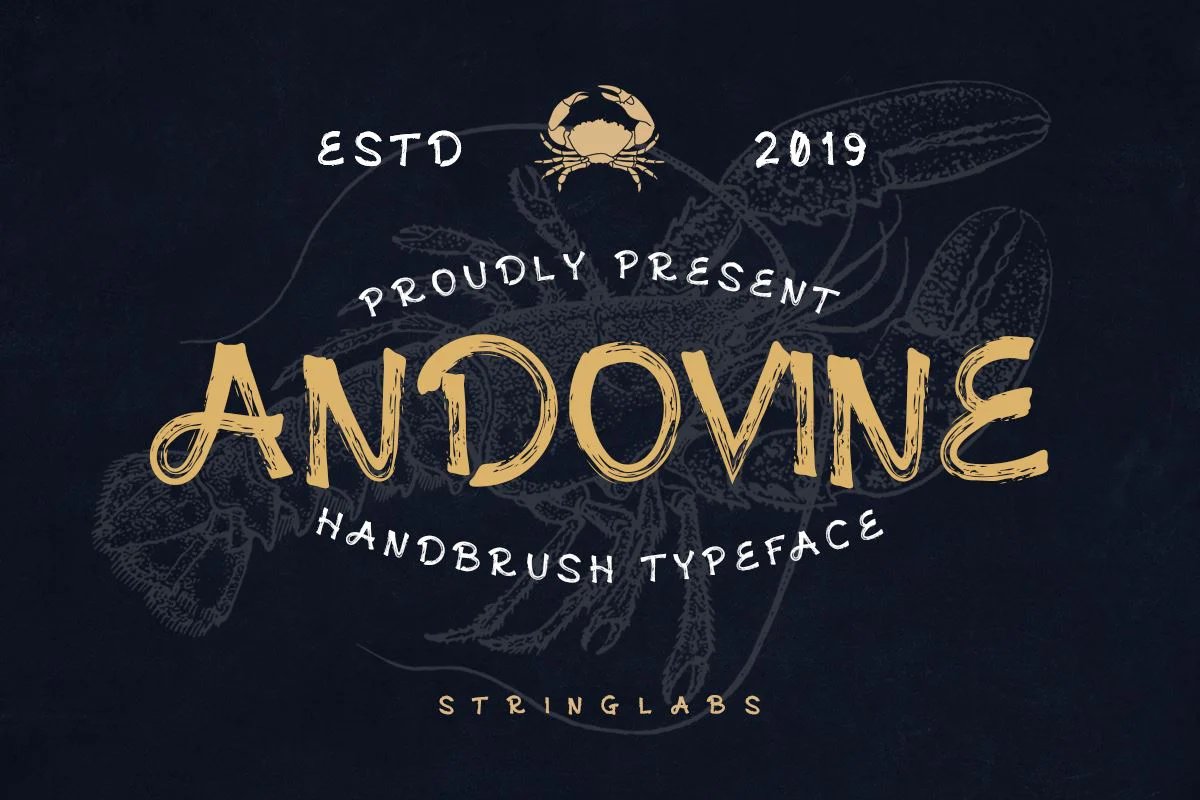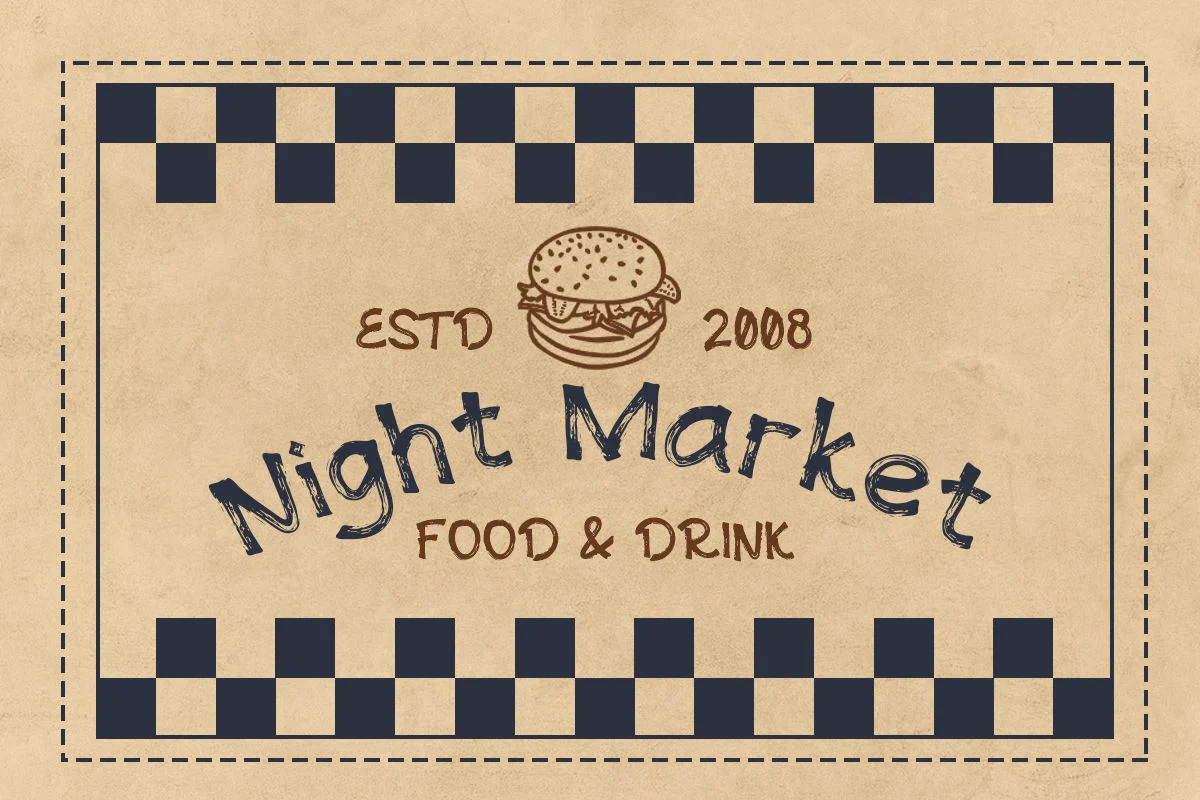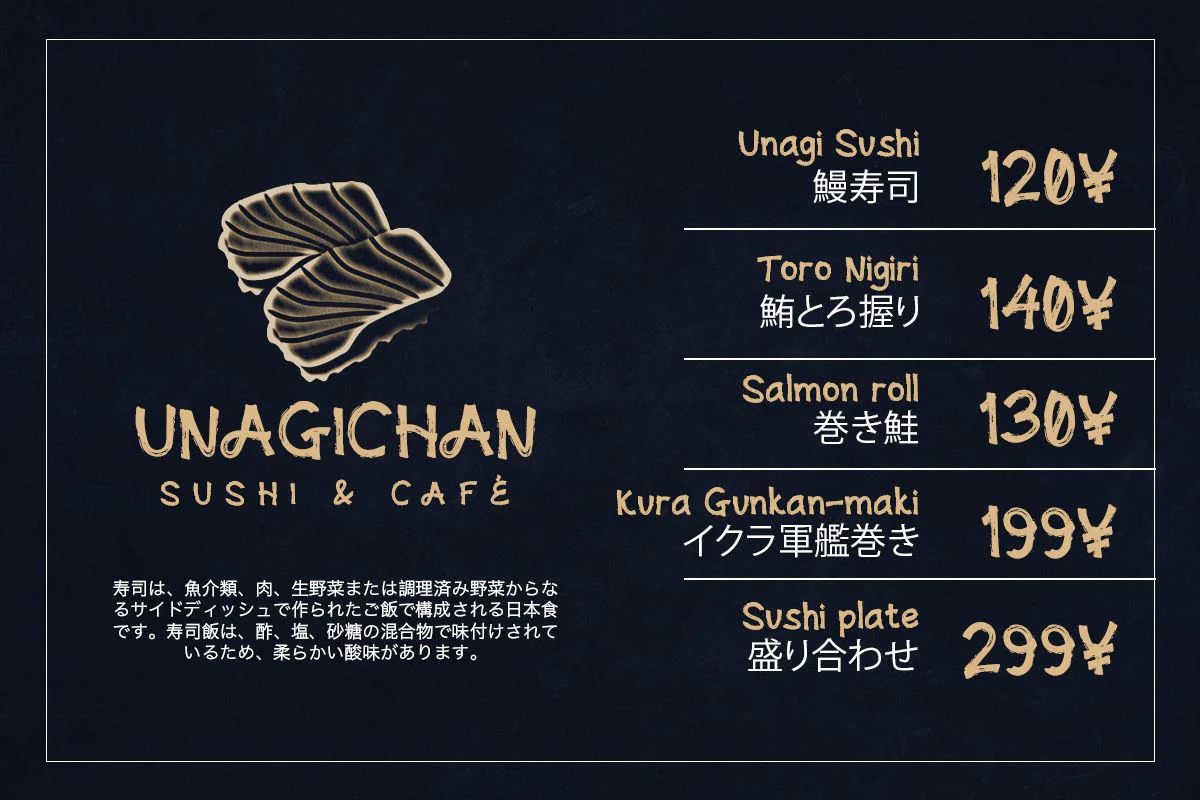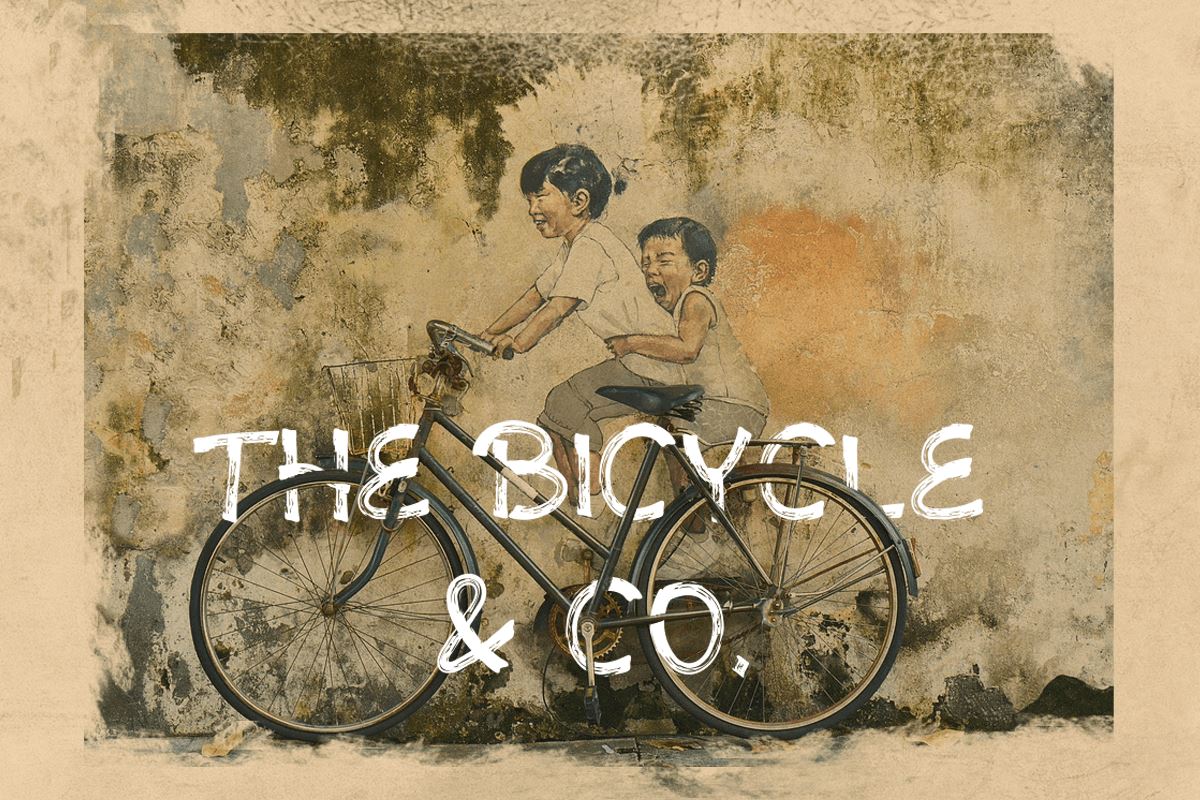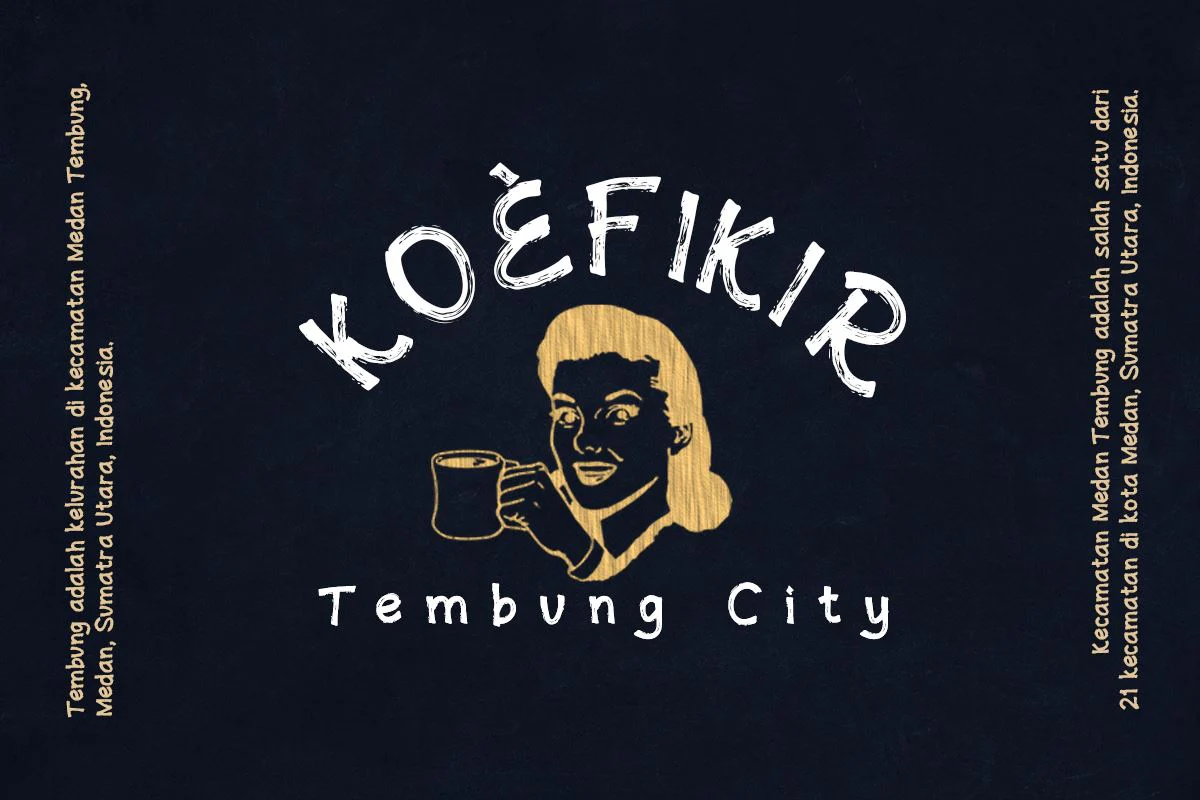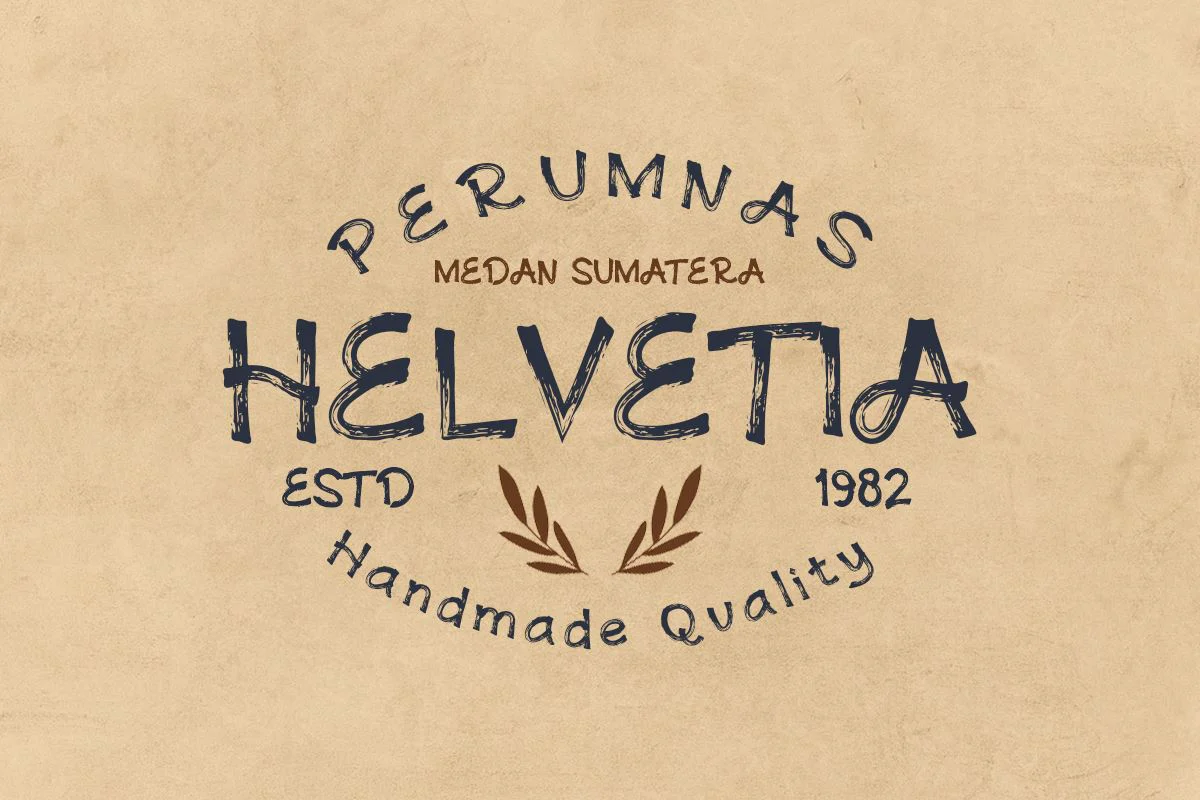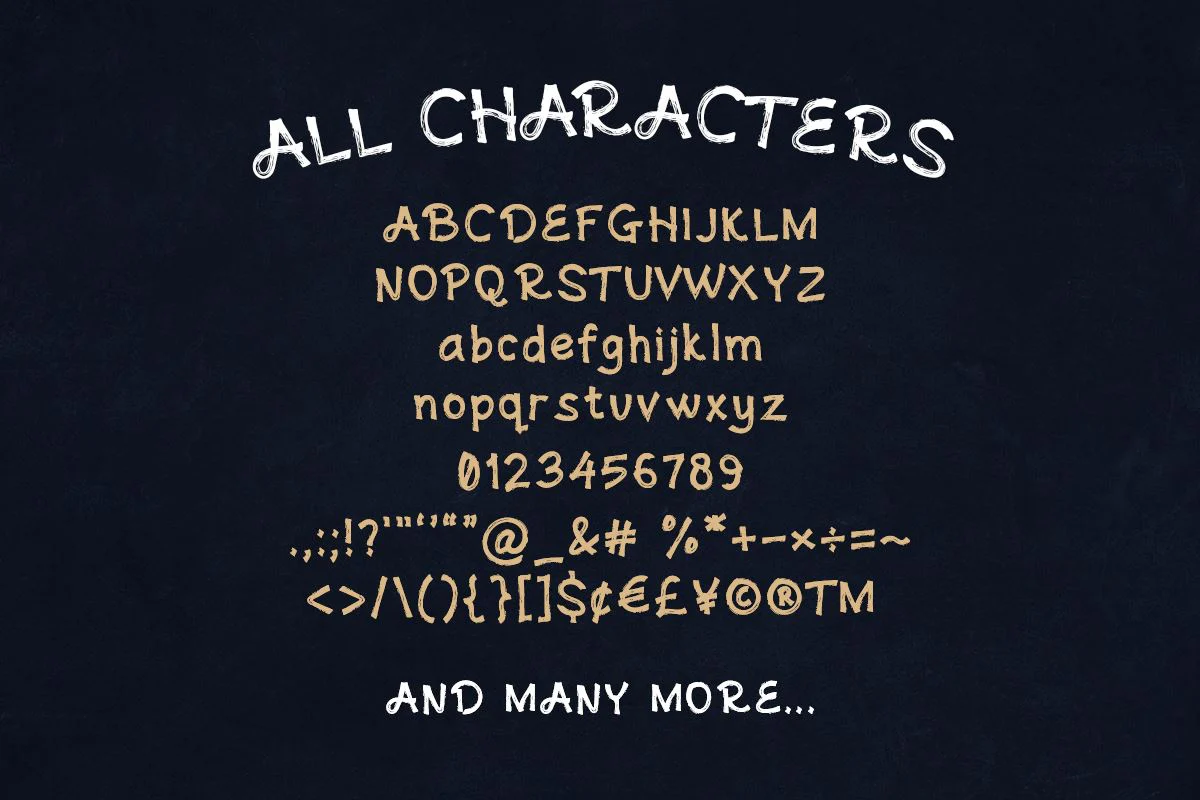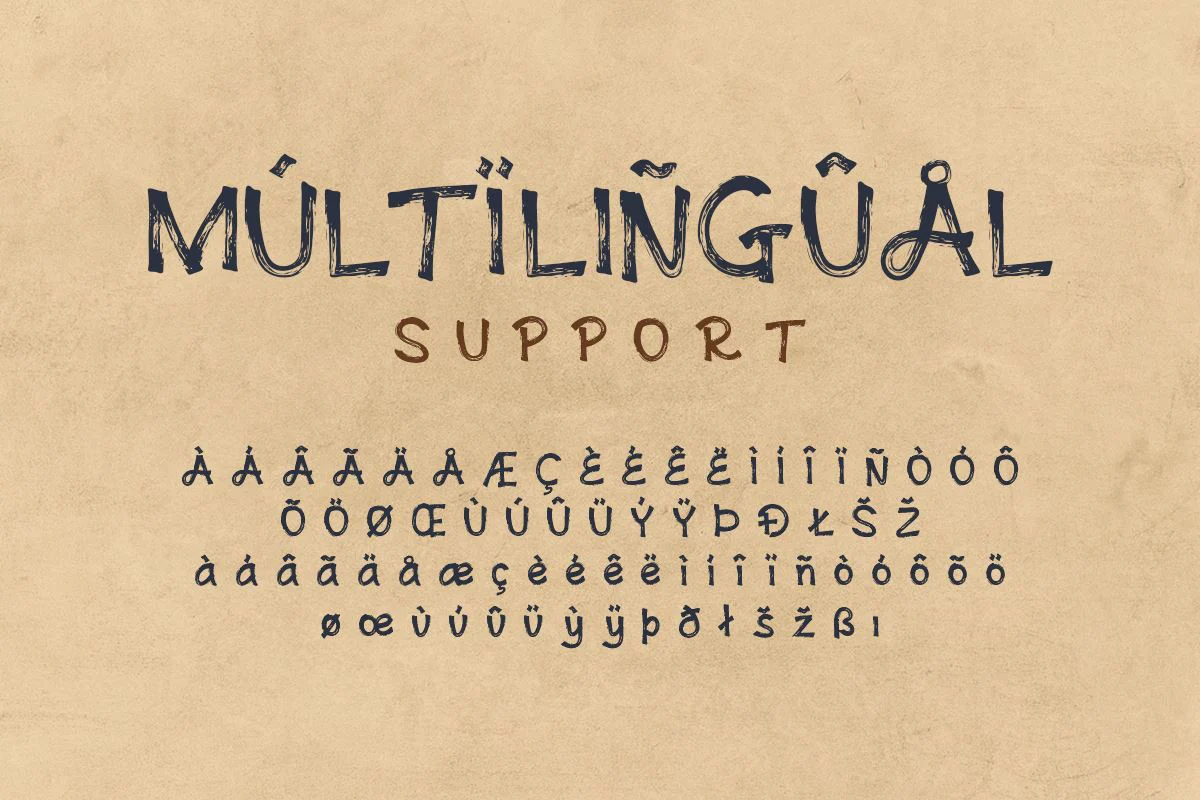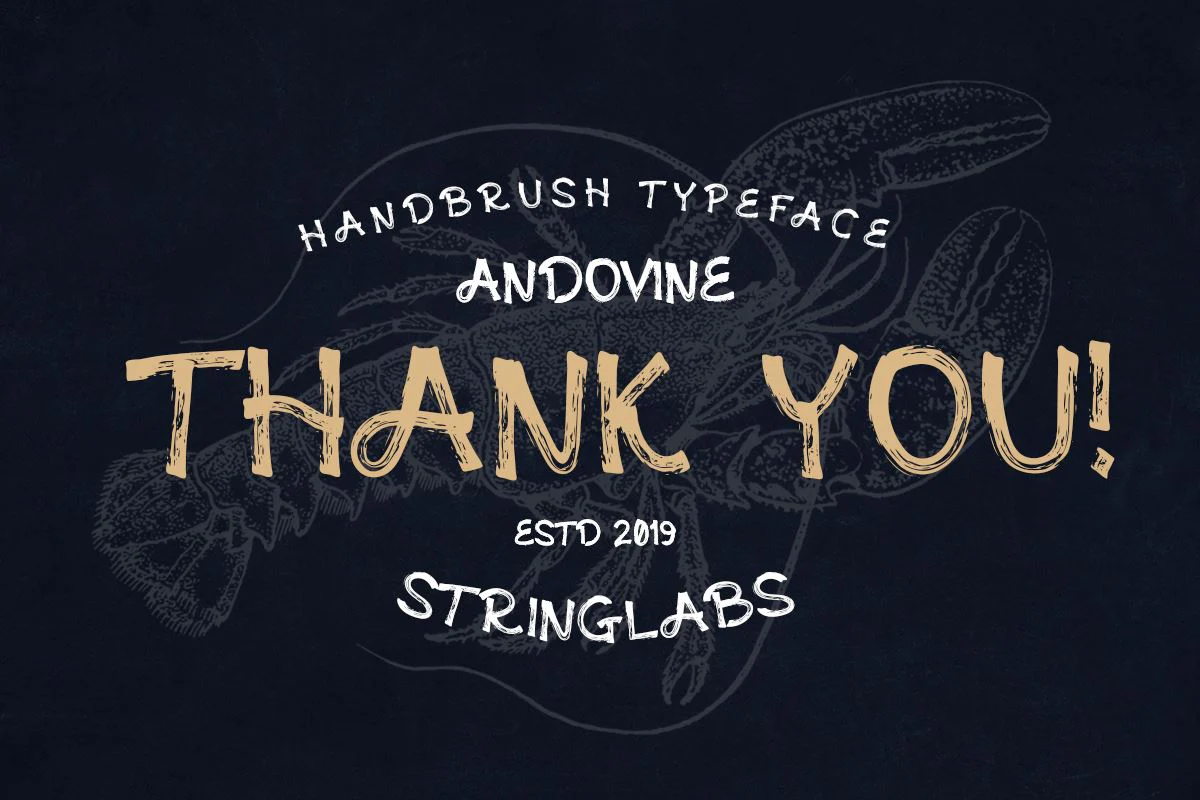
Andovine - Handbrush Typeface
Introducing Andovine - Handbrush Typeface
Andovine is a handbrush font with authentic style. Â
This font is made with a brush pen with very careful techniques, Â
so the results are charismatic and have enchanting characteristics
This Font can be used for any variety of purposes, such as: Â
Photography Projects, Logo Type, Graphic Design Projects, T-Shirt Design, Packaging Productand also can be used for personal purpose.
This Font Template contains Modern, Elegant, creative, Professional and Unique Concept.
- Uppercase & Lowercase letters